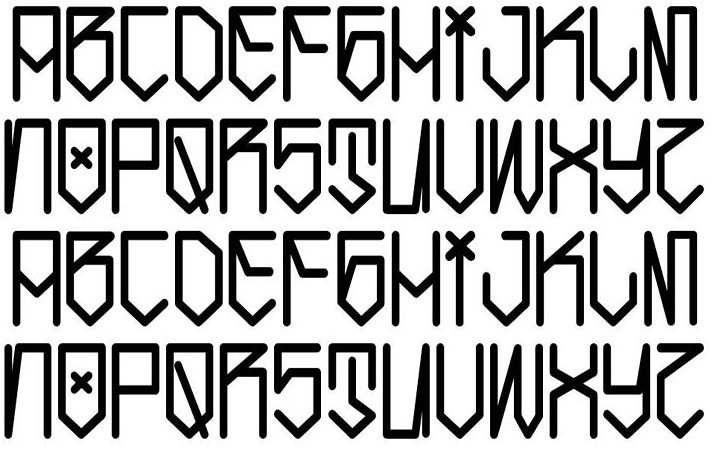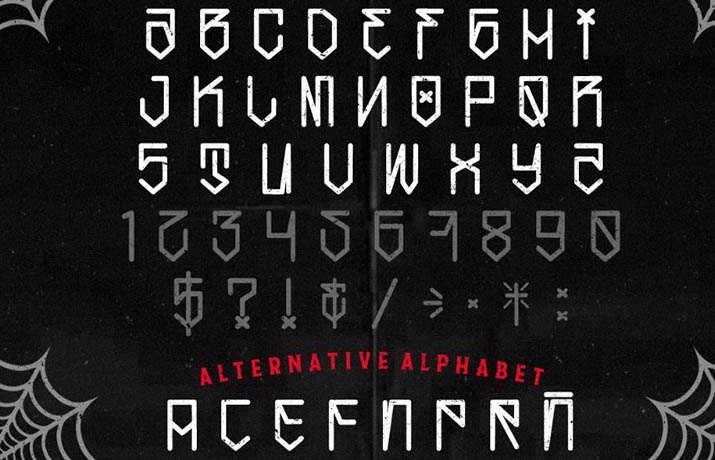
Cholo Letters Font is a fancy graffiti typeface that has bold and distinctive letterforms. It takes inspiration from Chicano culture. Designed and shared by Richie Mx.
You will look at its structure and then realize that its width has been thick by the designer. It’s only noticeable because of its x-large height. All the letters retain their natural with sharp edges and elongated letters.
This is such a great font family because it can easily adjust to ancient design. So, this will be the perfect opportunity for those who want an urban and rebellious touch in design.
Style: | Fancy, Display, Graffiti |